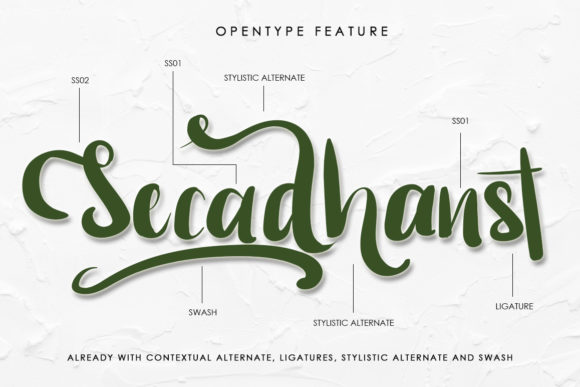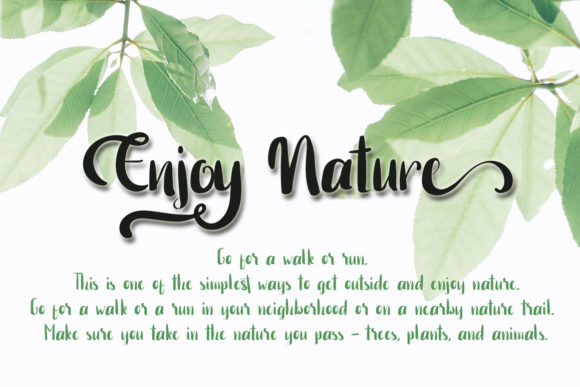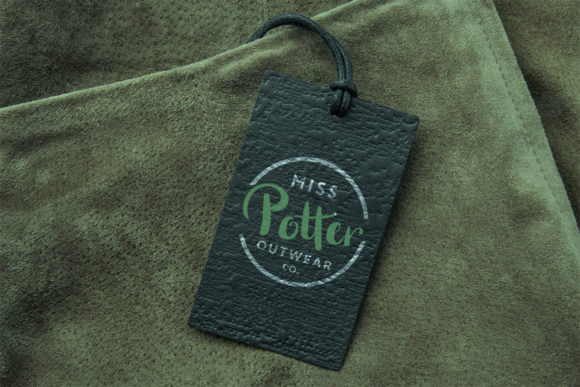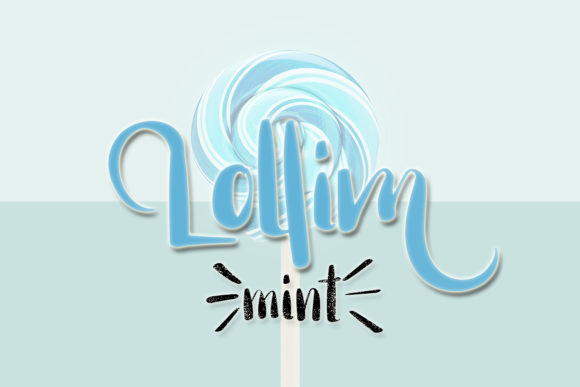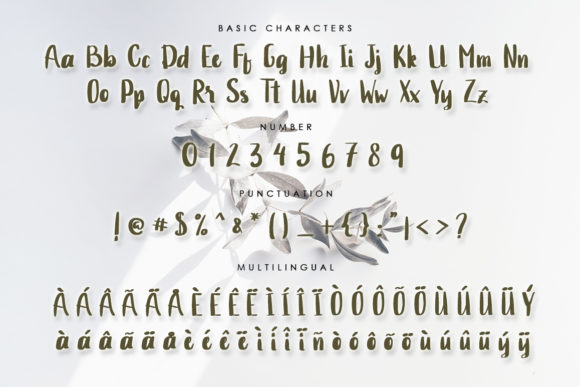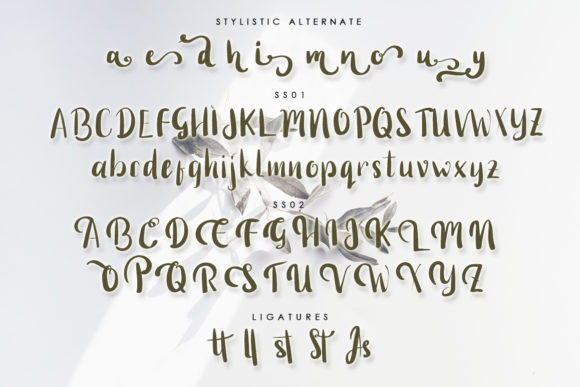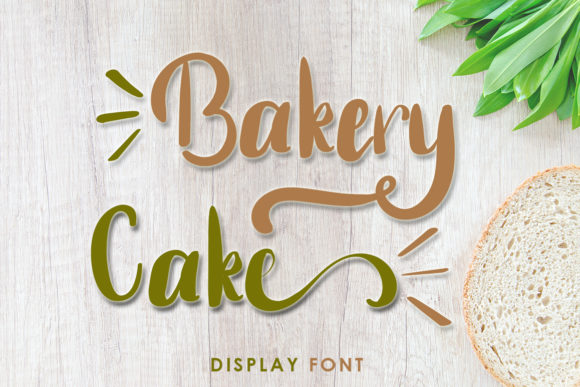
Bakery Cake Font: Elevate Your Designs with a Cheerful and Luxurious Touch
Are you a designer or crafter looking for a font that can add a touch of warmth and sophistication to your projects? Look no further than the Bakery Cake font! This cheerful, friendly, and luxury display font is perfect for a wide range of design projects, from branding and headings to invitations, logos, labels, and more.
What Makes Bakery Cake Font So Special?
Bakery Cake font is a unique and eye-catching typeface that is sure to make your designs stand out. Its cheerful and friendly vibe makes it perfect for projects that require a playful and approachable tone, while its luxurious feel adds a touch of sophistication and elegance. Whether you’re designing a logo, creating a label, or crafting an invitation, Bakery Cake font is sure to elevate your project to the highest level.
Key Features of Bakery Cake Font
- Cheerful and Friendly: Bakery Cake font has a playful and approachable tone that is sure to bring a smile to your customers’ faces.
- Luxury Display Font: With its elegant and sophisticated feel, Bakery Cake font is perfect for high-end designs that require a touch of luxury.
- Versatile: This font is suitable for a wide range of design projects, from branding and headings to invitations, logos, labels, and more.
- High-Quality: Bakery Cake font is designed with high-quality craftsmanship, ensuring that it looks great in any design project.
How to Use Bakery Cake Font in Your Designs
Using Bakery Cake font in your designs is easy! Here are a few ideas to get you started:
- Branding: Use Bakery Cake font as a logo or heading font to add a touch of warmth and sophistication to your brand.
- Invitations: Create beautiful and elegant invitations for weddings, birthday parties, and other special occasions.
- Labels: Use Bakery Cake font to create eye-catching labels for products, gifts, and more.
- Headings: Add a touch of luxury to your website or blog with Bakery Cake font as a heading font.
Why Designers and Crafters Love Bakery Cake Font
Designers and crafters love Bakery Cake font for its unique and eye-catching design. Here are a few reasons why:
- Easy to Read: Bakery Cake font is clear and easy to read, making it perfect for designs that require a high level of legibility.
- Customizable: With its wide range of characters and symbols, Bakery Cake font can be customized to fit your design needs.
- Unique: Bakery Cake font is a one-of-a-kind typeface that is sure to make your designs stand out from the crowd.
In conclusion, Bakery Cake font is a cheerful, friendly, and luxury display font that is perfect for a wide range of design projects. With its unique and eye-catching design, high-quality craftsmanship, and versatility, Bakery Cake font is sure to elevate your designs to the highest level. Whether you’re a designer or crafter, Bakery Cake font is a must-have in your font collection.